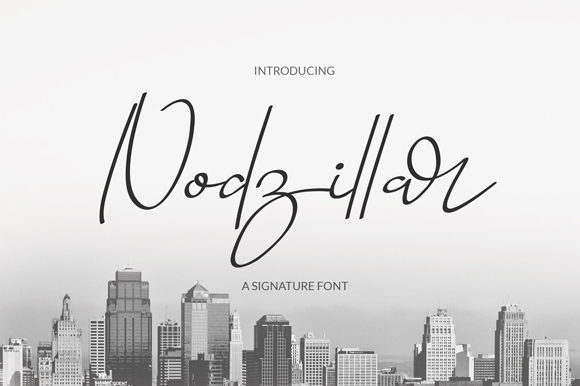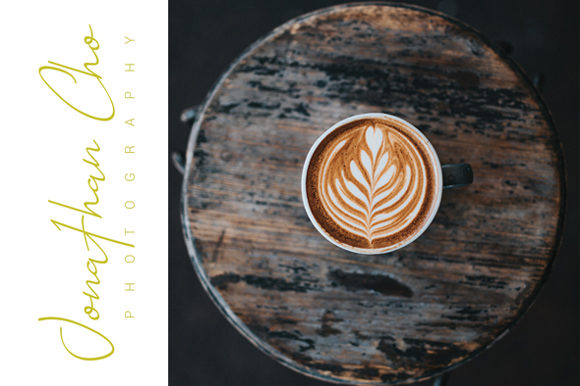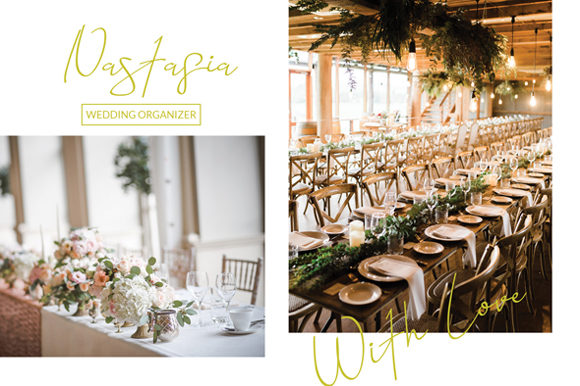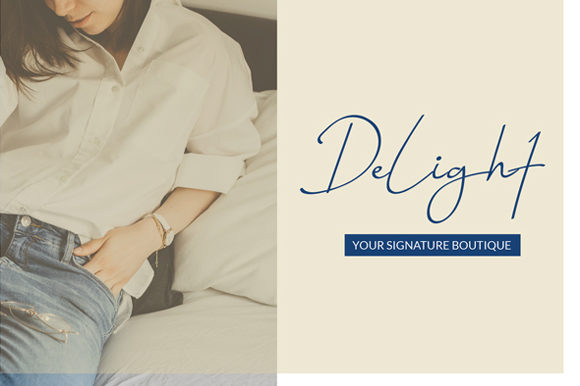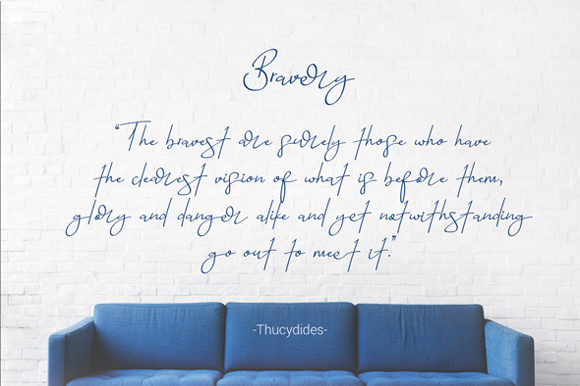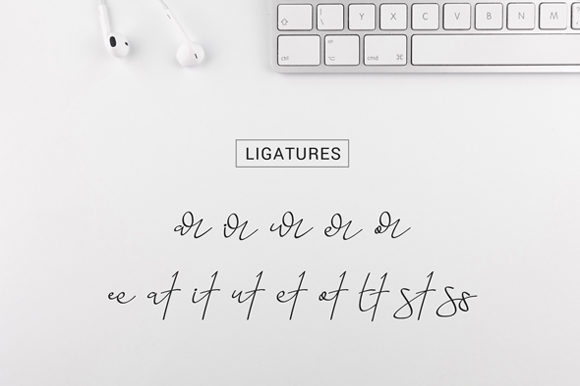
Nodzillar Font
About Nodzillar Font
Nodzillar is a classic signature font that’s perfect for taking any design idea to the next level. Fall in love with its natural charm!